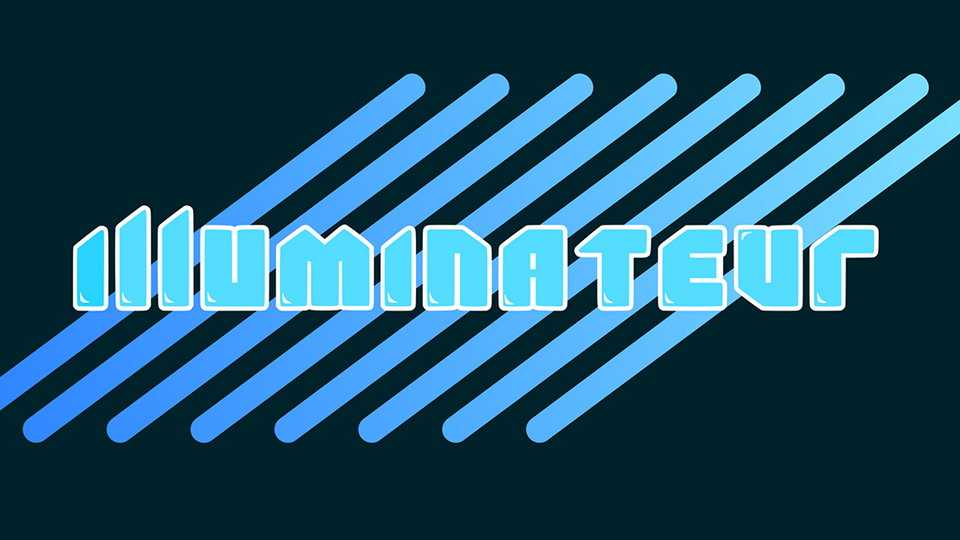
Download Illuminateur font, a creative geometric typeface based on a square forms and angles. Illuminateur font is perfect for headlines and emblems. It also suits for posters.
Designer: Sasha Lend